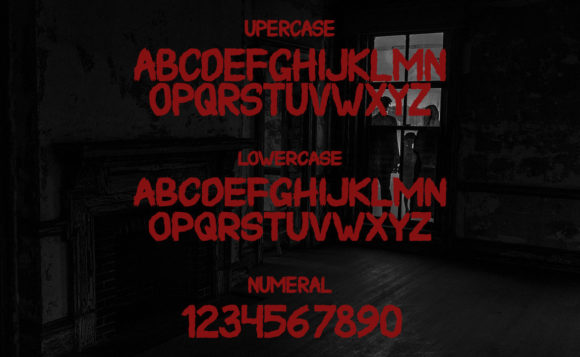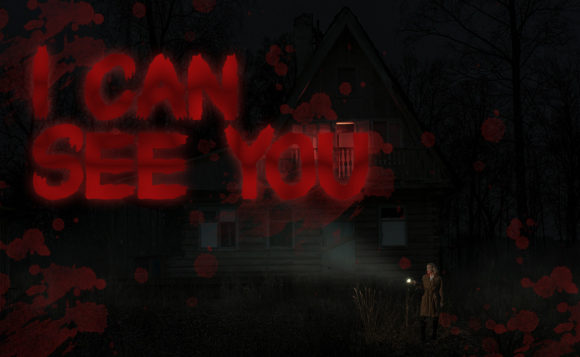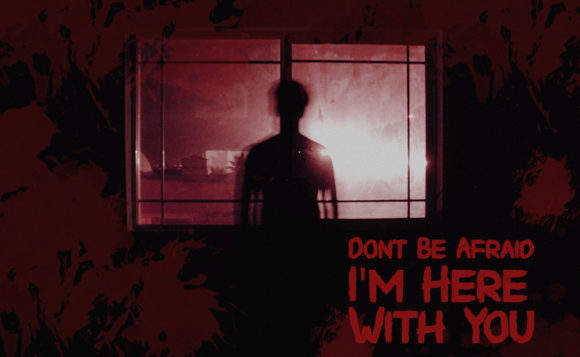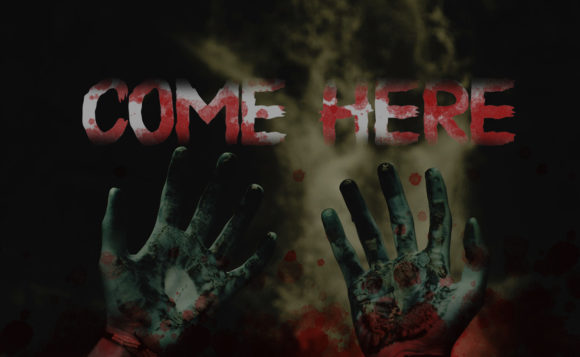
Introduction to Lelembut Font
Have you ever been working on a creative project and stumbled upon that perfect font that elevates your design to the next level? For many designers, this moment is a game-changer. It’s the spark that ignites inspiration and drives creativity forward. For us, that moment came when we discovered the Lelembut Font – a stunning display font that adds a touch of sophistication to any design.
What sets Lelembut apart is its sleek, brushed design that exudes high quality and style. Whether you’re working on a fashion branding project or an editorial design, Lelembut Font is the perfect addition to your toolkit. With its smooth curves and elegant feel, it’s no wonder designers are falling in love with this versatile font.
Key Features of Lelembut Font
- High-quality font design for creative projects, ensuring professional results
- Unique and stylish design, making it perfect for creative projects that require a touch of elegance and sophistication
Honest Review: Lelembut Font
I recently stumbled upon the Lelembut Font and I must say, it’s been a game-changer for my creative projects. This free download has been a valuable design resource that has added a unique touch to my work.
What works well with the Lelembut Font is its high quality and versatility. The font is available in a transparent background option, making it super easy to incorporate into any design. The wide range of styles and sizes available also makes it a great addition to any project.
- ✨ Unique and stylish design
- ✨ High quality and crisp typography
- ✨ Easy to use and customize
However, there are a few limitations to consider. The font may not be suitable for projects that require a more traditional or formal look. Additionally, the font may not be as widely compatible with certain software or systems.
- ⚠️ May not be suitable for formal or traditional projects
- ⚠️ Limited compatibility with certain software or systems
Overall, I’m really impressed with the Lelembut Font and would definitely recommend it to designers looking for a unique and high-quality font for their creative projects.
Lelembut Font is ideal for creating high-quality designs with a transparent background. It’s perfect for use in logos, graphics, and other visual elements that require a clean and modern look.
Q: Is the Lelembut Font suitable for print or digital use?
The Lelembut Font is designed to be versatile and can be used in both print and digital applications. However, for optimal results, it’s recommended to use the font in digital designs, where its unique characteristics can be fully appreciated. If you plan to use the font for print, make sure to check the font’s legibility and readability in the specific print context.